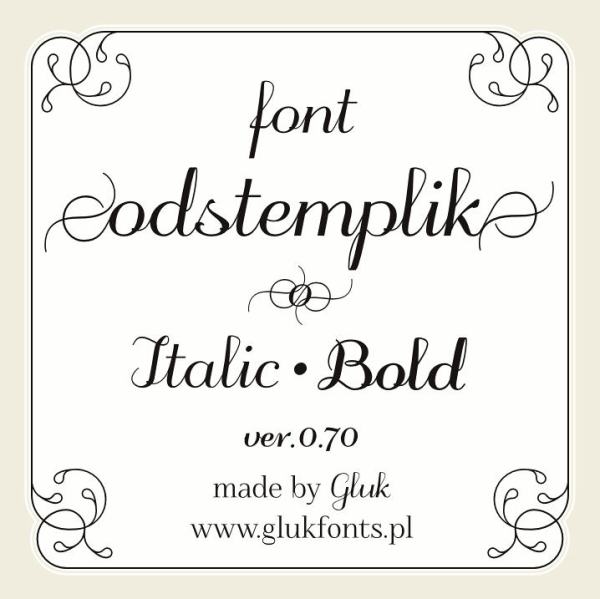
Font Frenzy: Odstemplik – FREE!
A script font with an old-fashioned elegance, Odstemplik comes regular and italic, and contains many diacritical marks for non-English text. Best of all, it’s public domain, has an OFL license, and is free for commercial use. You can see an example below. Odstemplik would probably work best as a font paired with a simple, sans serif font. Stand-alone, keep it short and simple. Have fun!